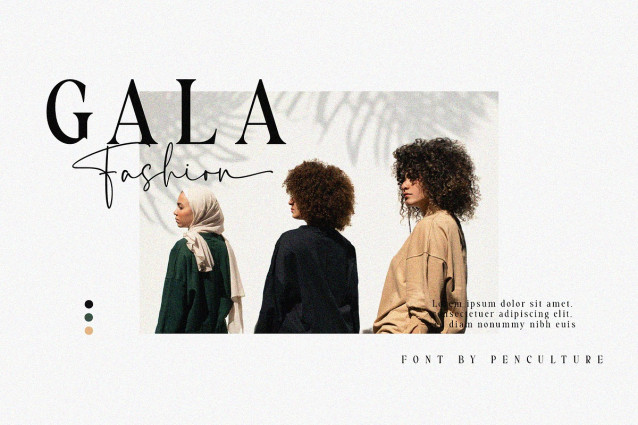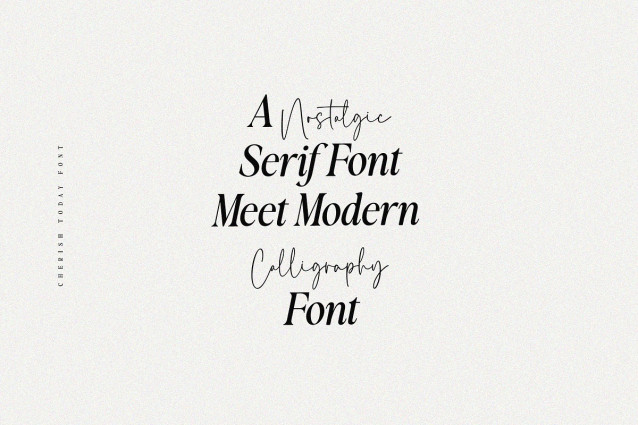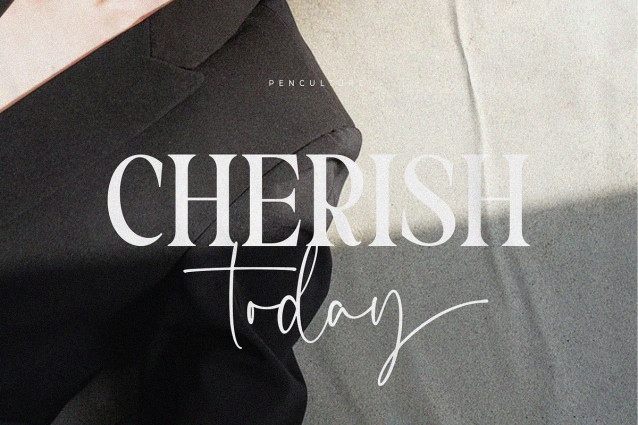
Cherish Today Font Duo
Cherish Today Font Duo. It’s a nostalgic serif font which has a classy feel. This font is suitable for a wide variety of needs in both modern and classic themes. You will also get free granola modern calligraphy, so you can easily mix and match.